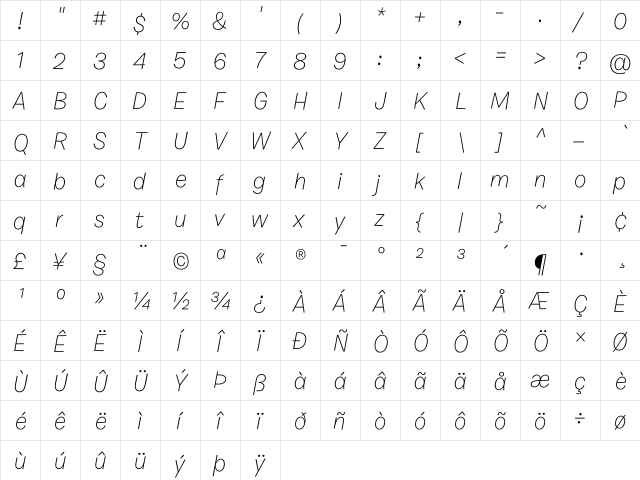
Burbank Small Light Italic Font Preview
| Style | Light Italic |
| Foundry | House Industries |
| Designer | Tal Leming |
Design Context for Burbank Small Typeface
Burbank Small takes a measured approach to typography — its balanced proportions and neutral character make it a reliable workhorse for both digital and print work. The slanted form adds forward momentum and visual energy. Its slender proportions lend an understated elegance to any composition.
Pro Tip: Try Burbank Small for annotation and caption copy alongside an upright companion — the contrast in angle creates a dynamic but ordered typographic system.